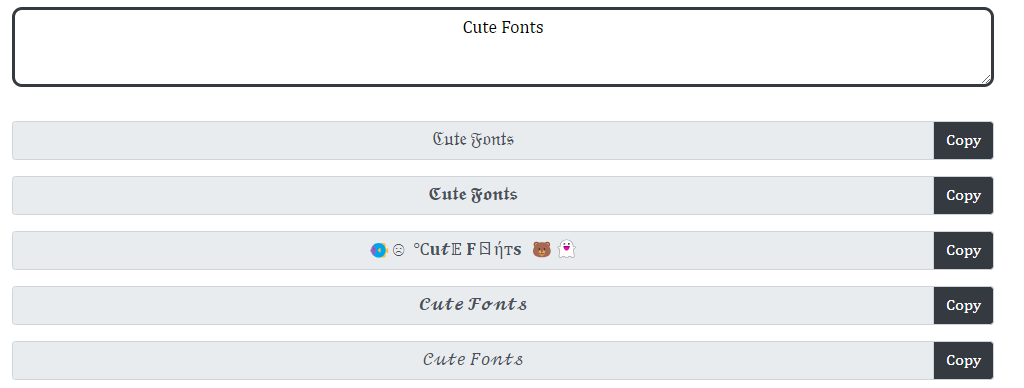
Cute fonts
These Cute fonts are designed to evoke feelings of fun, and friendliness. They are frequently used in projects related to children’s content, greeting cards, social media posts, and anything that aims to be visually appealing and light-hearted. Website